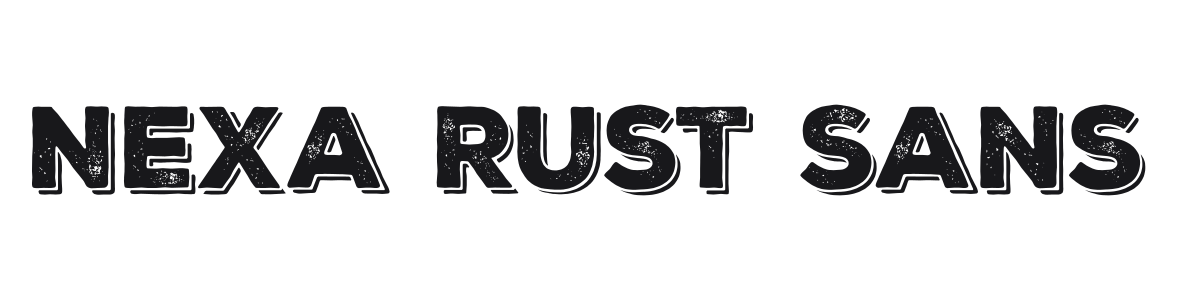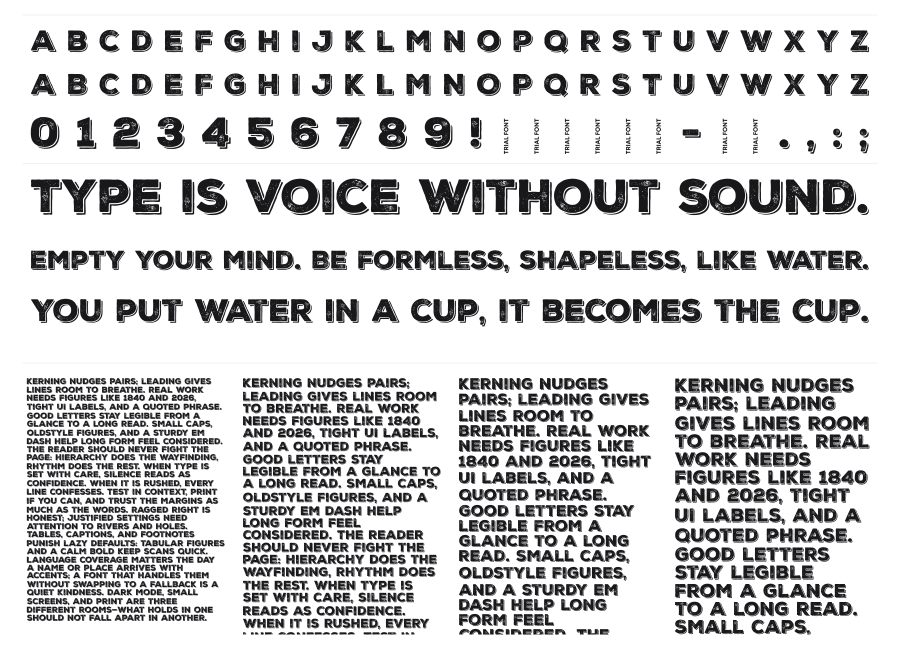
Nexa Rust Sans
Nexa Rust Sans is a heavy geometric sans with a built-in distressed texture and inline drop shadow that mimics worn letterpress or rubber-stamp printing. Part of Fontfabric's broader Nexa Rust system, it brings a raw, handcrafted feel to bold display work. The gritty surface detail keeps it from feeling flat, making it a strong choice for craft branding, vintage posters, and anywhere authenticity is the point.